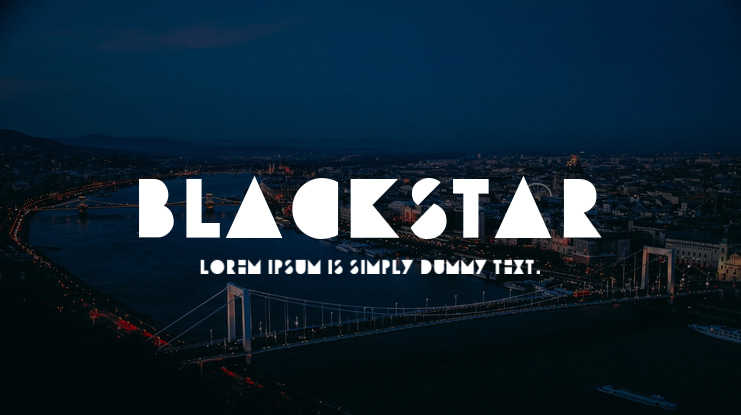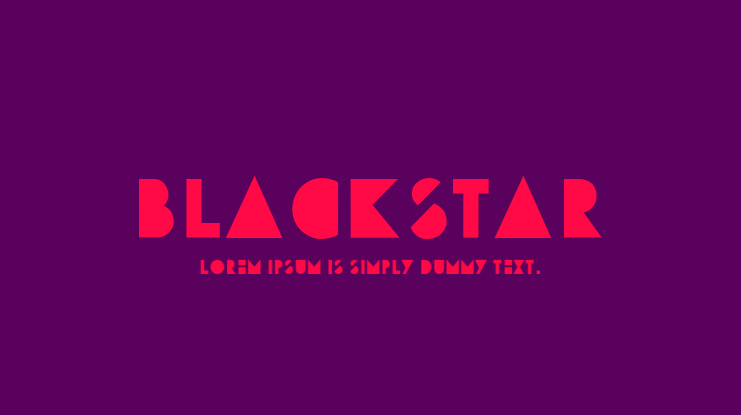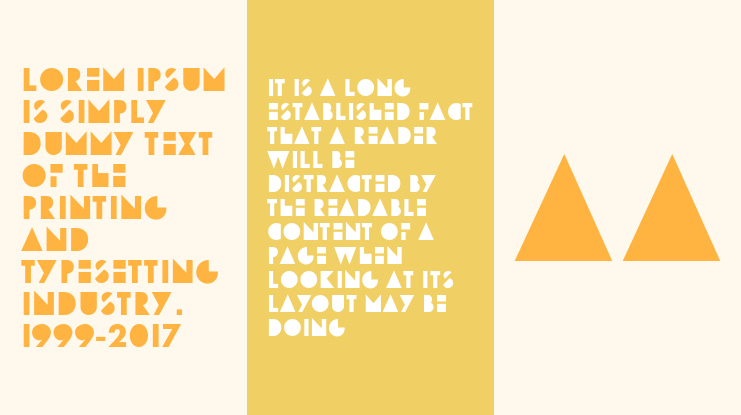
blackstar Font
An abstract, futuristic font. Even though it is quite different than what I normally do, I’m particularly fond of this one! Inspired by the vastness and black-ness of space.